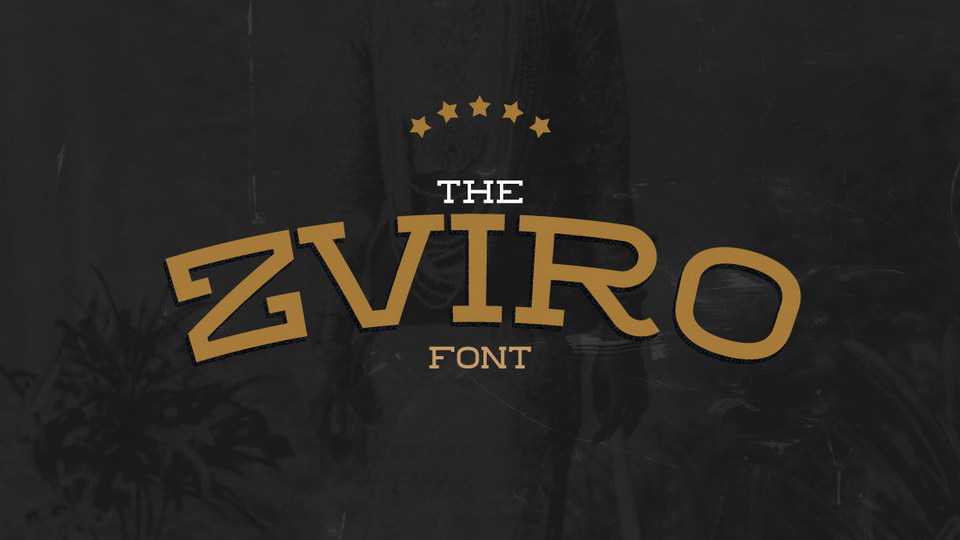
Download Zviro font, a slab serif typeface with a vintage feel and strong personality. Zviro font is perfect for logos, eye-catching headlines and posters, badges, labels, signage and more.